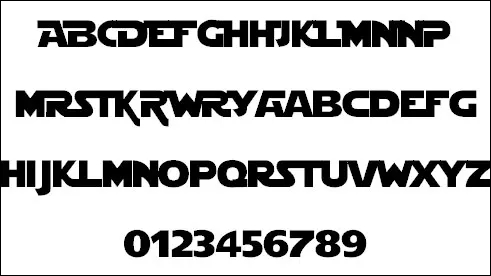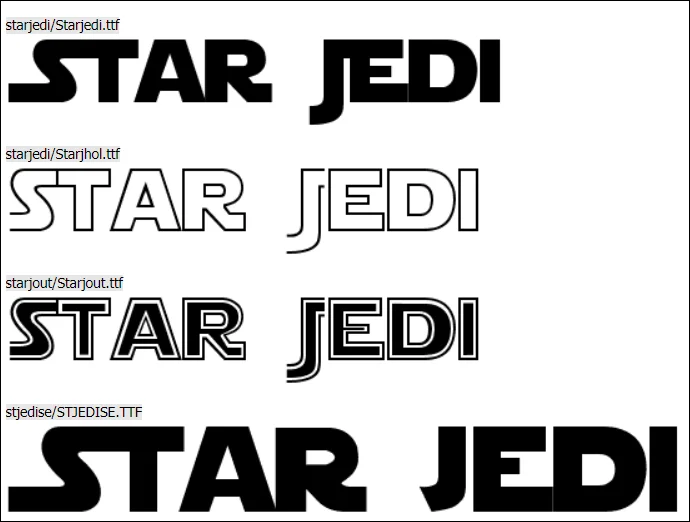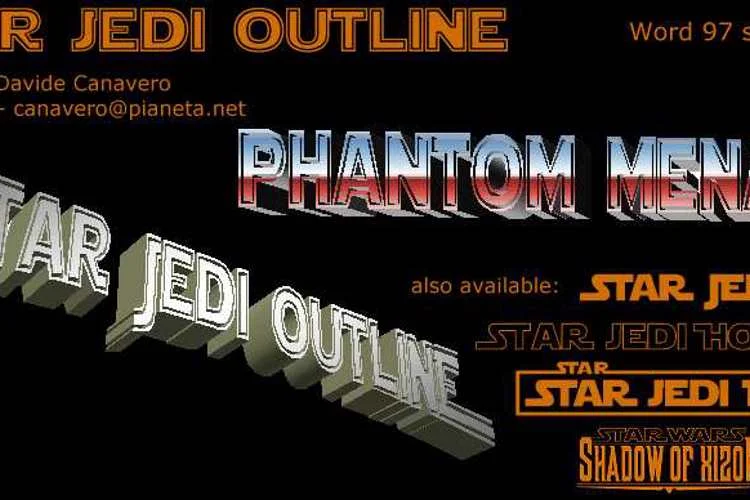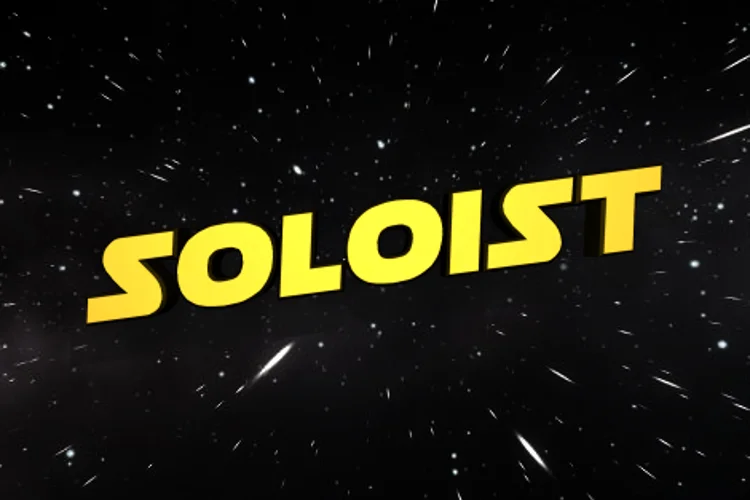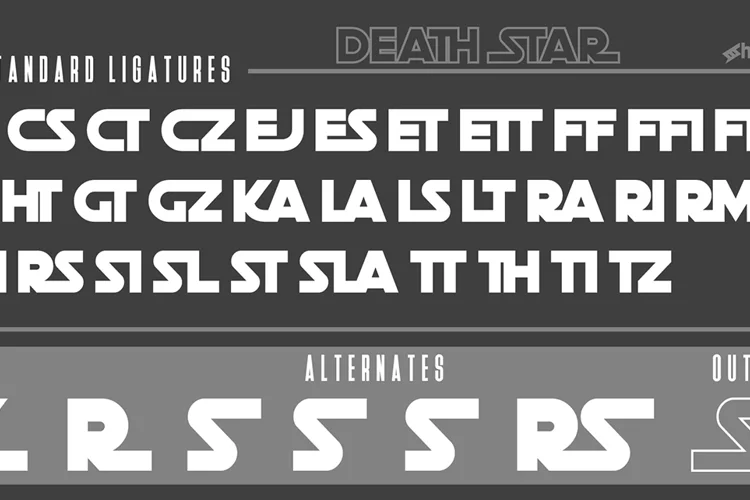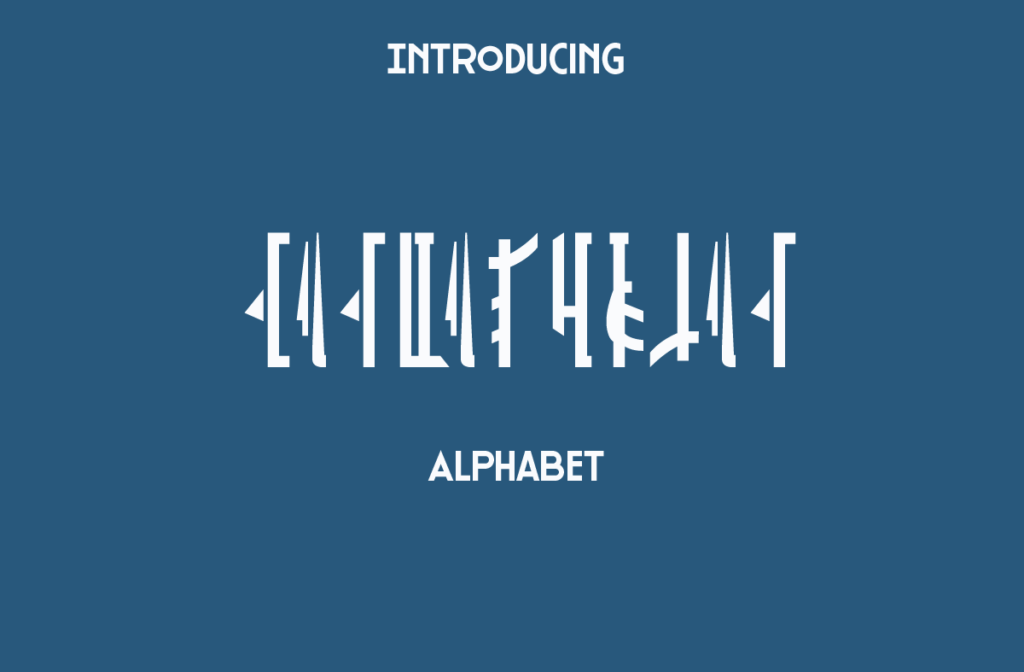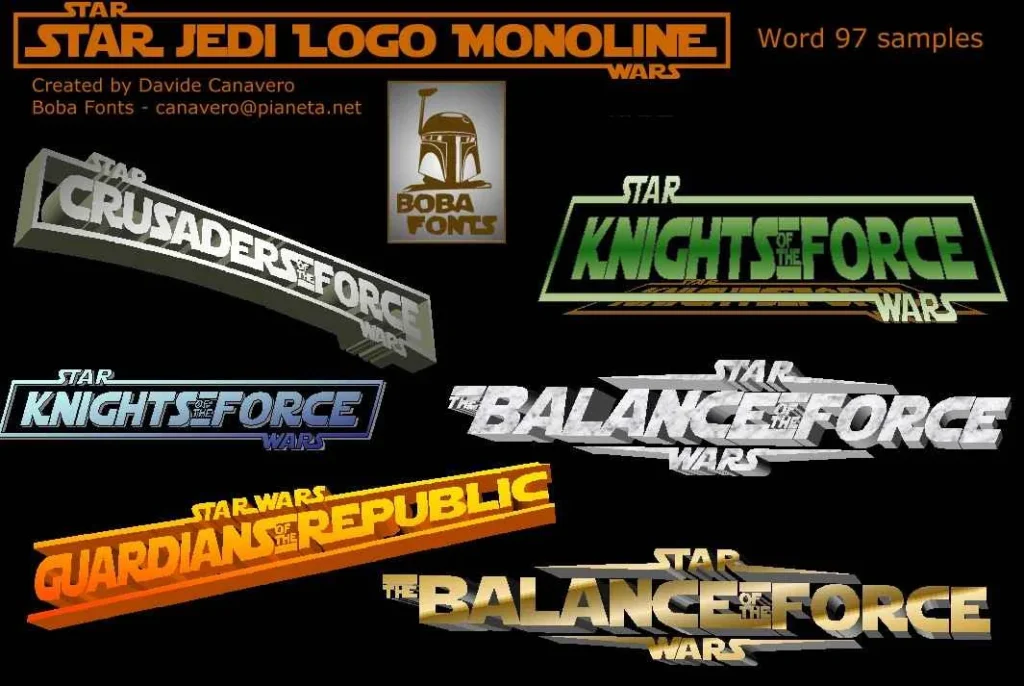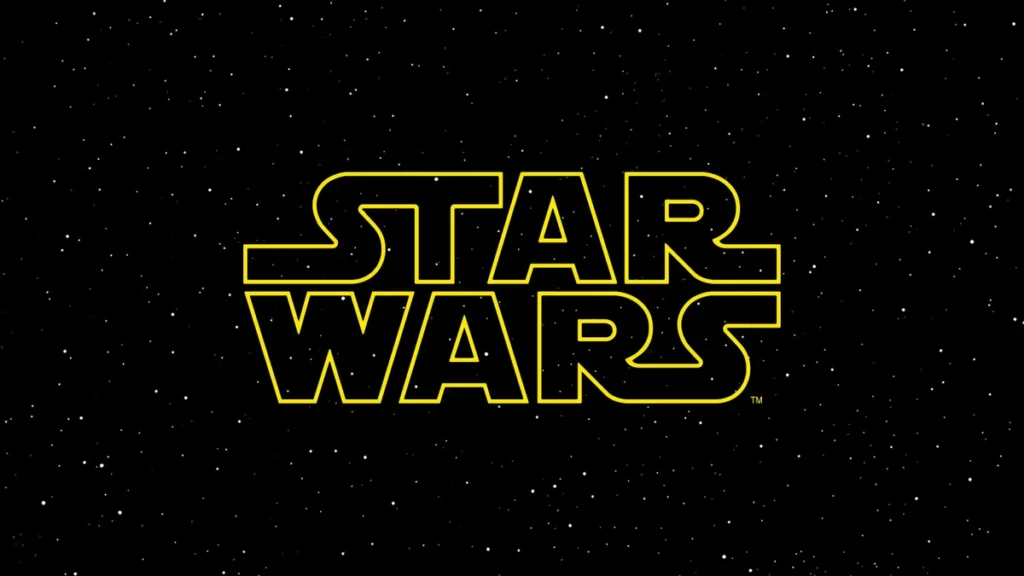
Top 11 Star Wars Font To Add To Your Design Toolkit
Are you looking for a Star Wars font to add to your design resources? We’ve listed the top 11 Star Wars typography, which can be easily downloaded and used in your designs.
So read ahead for a spectacular collection of fonts you can use to enhance your designs.
An Overview Of Star Wars Typography
Star Wars typography is crucial to the franchise’s visual identity. The bold logo font, created by Suzy Rice in 1977, draws inspiration from Helvetica Black.
The opening crawl uses News Gothic, while titles are often set in ITC Serif Gothic. Fans have created popular fonts like Star Jedi and Mandalorian, which capture the franchise’s style.
Aurebesh serves as the fictional script for the Galactic Empire. Throughout the films and series, typography changes to reflect different cultures and styles within the universe, but it always maintains a similar look that defines Star Wars for generations.
11 Free Star Wars Fonts For Your Designs
1. SF Distant Galaxy Star Wars Font
Inspired by a far-away galaxy, this Star Wars-themed font offers ten unique styles and is entirely free to use. It also includes a symbol pack featuring iconic logos from the films.
2. Star Jedi Font
Jedi Star Wars Font is perfect for recreating the Star Wars logo. It offers both solid and hollow variants to suit all your needs.
This tilting, all-caps font has numerous variations and connections. This is the perfect option to download if you want to add Star Wars typography to your toolkit.
3. Battle Star Font
This is another great option to add a Star Wars vibe to your designs. It’s simplicity, with bold, striking letters that instantly evoke a sci-fi feel.
The subtle texture at the bottom of the letters adds a touch of pop and sets it apart.
4. Star Jedi Outline Font
This tilting, all-caps Star Wars font features lettering framed with a thin outline, just as the name suggests. It is a unique font and will fit designs that need to be loud.
5. Soloist
Soloist captures attention with its sleek, modern design, perfect for creating bold and futuristic Star Wars-inspired text. Its sharp edges and clean lines give it a distinct, cutting-edge feel that will work well in various types of projects.
This bold font is ideal for branding, titles, and digital designs.
6. Death Star Font
This all-caps font has a bold, 80’s retro style. It uses smooth, rounded curves and even stroke widths to create a classic look, perfect for your blog, logo, or t-shirts.
This version includes basic Latin letters and punctuation. It also includes some alternate characters and ligatures.
7. Rebellion Font
The Rebellion font resembles the logo from Disney/Lucasfilm’s animated show “Star Wars Rebels.” It has big, bold letters with unique corners and stylish cuts.
This font also offers extra punctuation, euro signs, numbers, letters, and italic and standard styles. This fantastic font is a must-have for every designer who wants to create sleek and futuristic designs.
8. The Mandalorian Font
The free version provides all uppercase and lowercase letters of the alphabet and several other characters.
9. Star Jedi Logo Font
Adding to the Star Jedi series, Boba Fonts has designed this variation, allowing for single or double lines of text that perfectly capture the Star Wars style.
These decorative frames remind us of the designs used in the promotional material for the original Star Wars trilogy, where film titles were mostly outlined with thin borders.
10. Galaxy 1 Star Wars Font
This font of Star Wars theme is another great option for headings. The dotted pattern gives it a very sci-fi vibe and will be perfect for futuristic designs.
This free font is a must-have if you want to create striking designs. The clean, rounded look will work well in headings for minimalistic designs.
11. Star Jedi Special Edition
With its bold, chunky letter shapes, the official Star Wars Trilogy Special Edition logo typeface inspires this final typeface by Boba Fonts. This is another capital letters font you can use for headings.